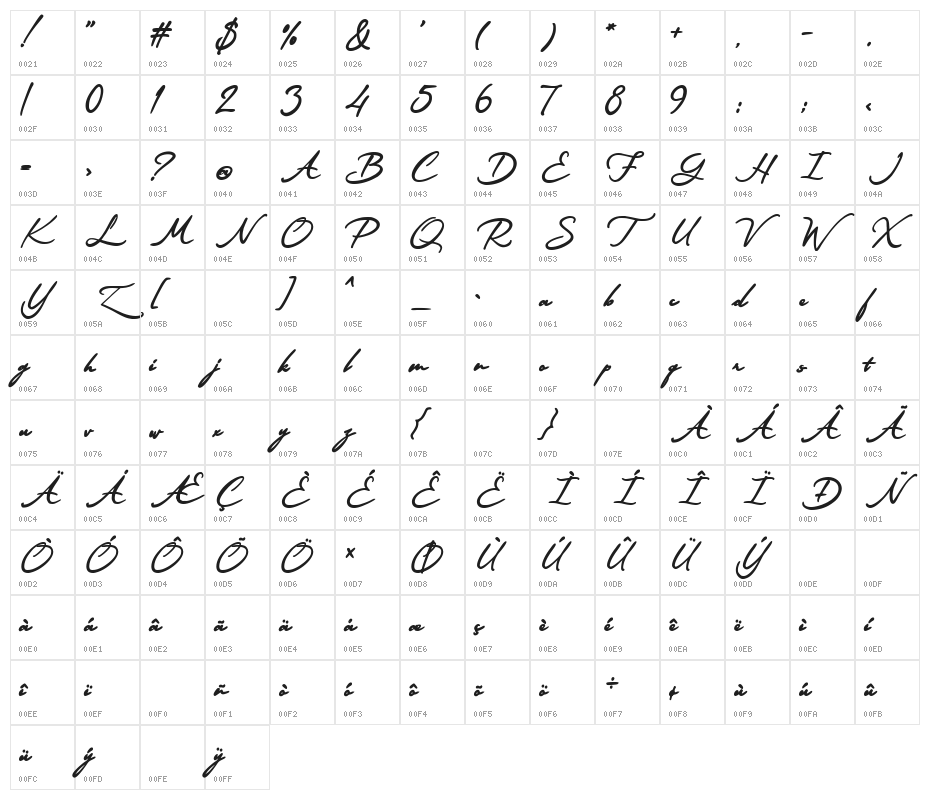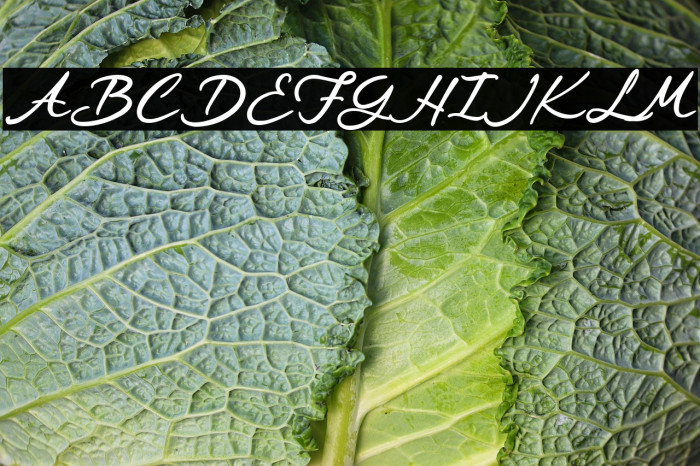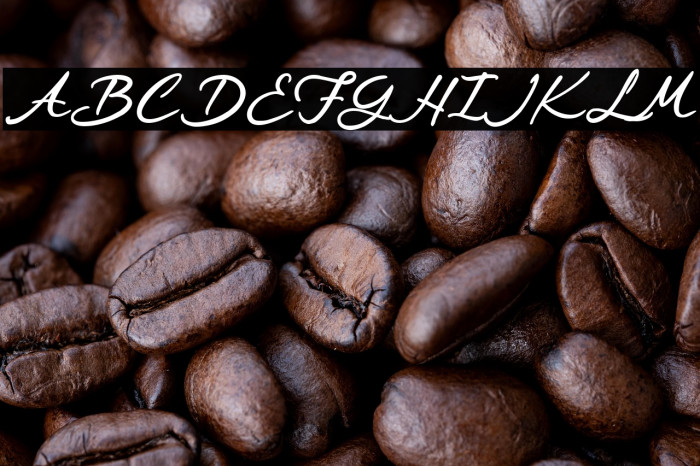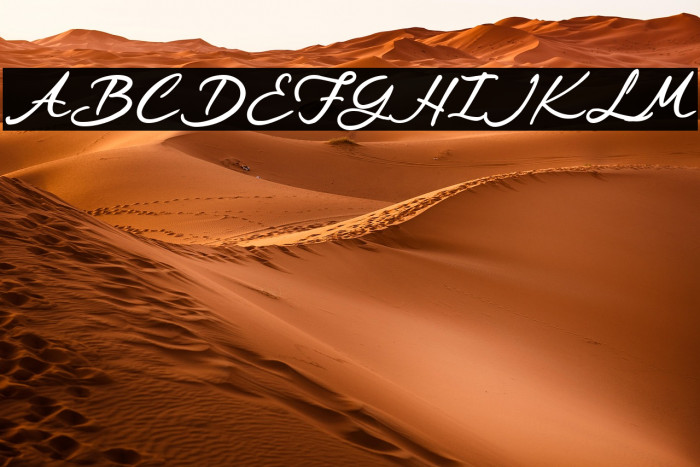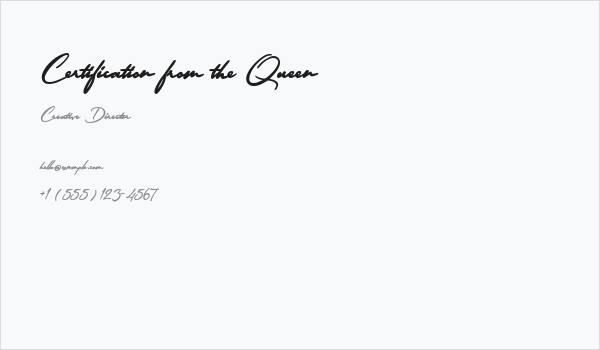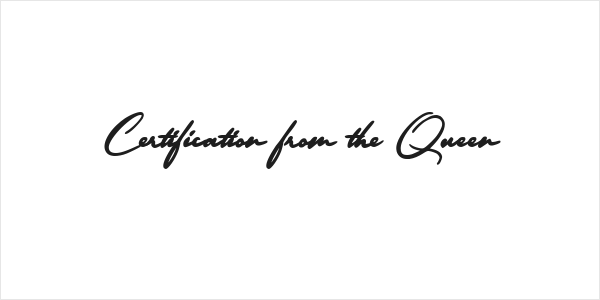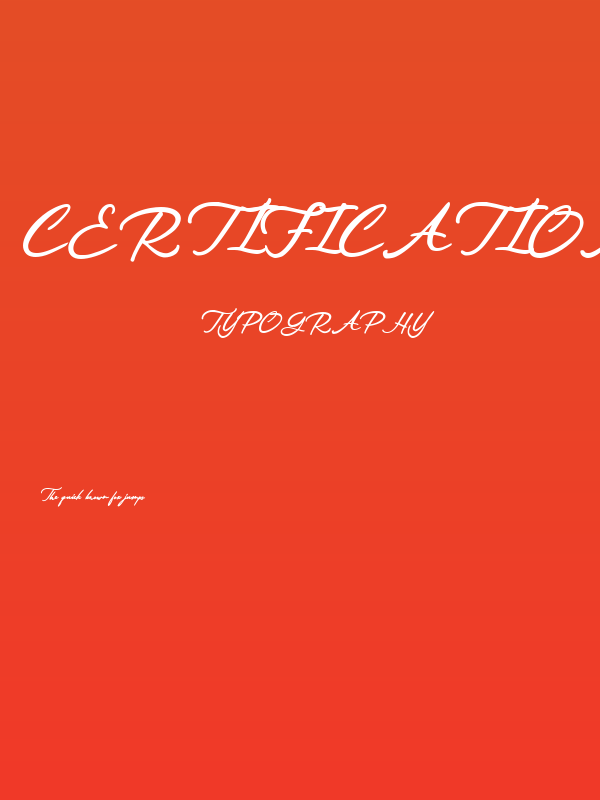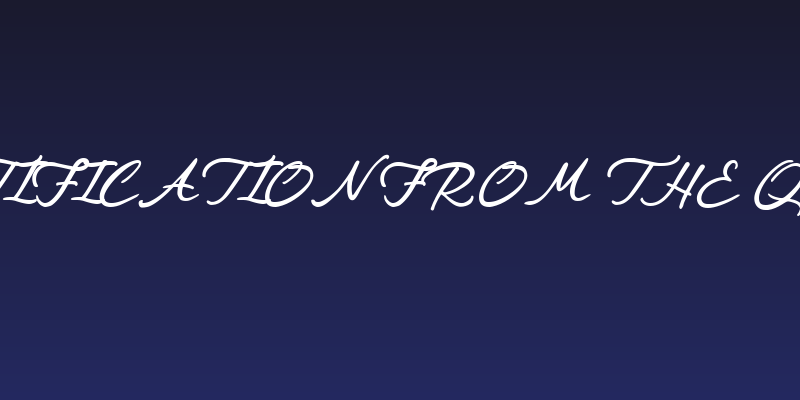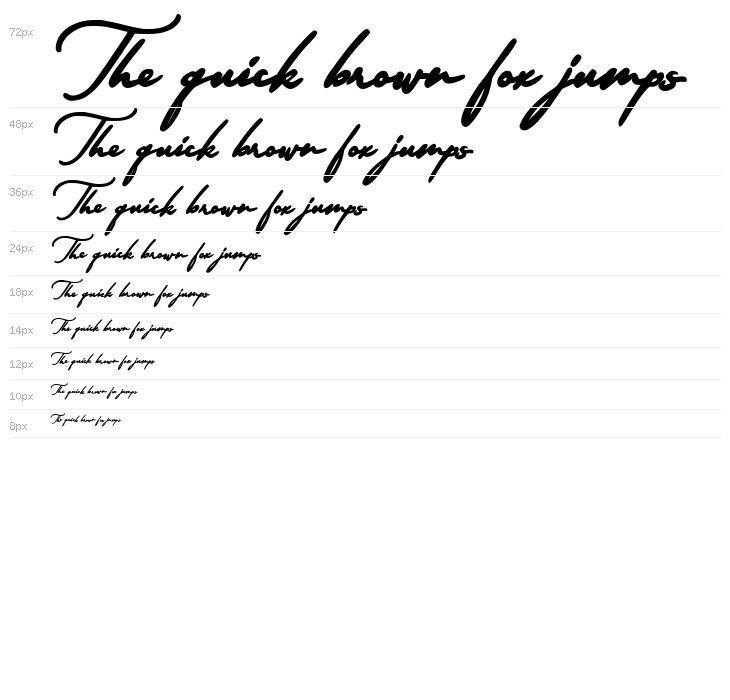
Certification from the Queen Font
Certification from the Queen Description
This elegant script font exudes a sense of sophistication and fluidity, characterized by its smooth, flowing lines and cursive style. The uppercase letters are gracefully connected, while the lowercase letters maintain a consistent slant, enhancing the font's cohesive appearance. The numerals and special characters are designed with the same fluidity, ensuring a harmonious look across all text. This font's calligraphic nature makes it ideal for formal invitations, certificates, and branding that requires a touch of elegance.
| Use Case | Invitations, Certificates, Branding |
| Proposed Projects | Ideal for wedding invitations, formal event programs, elegant branding, and certificates. |